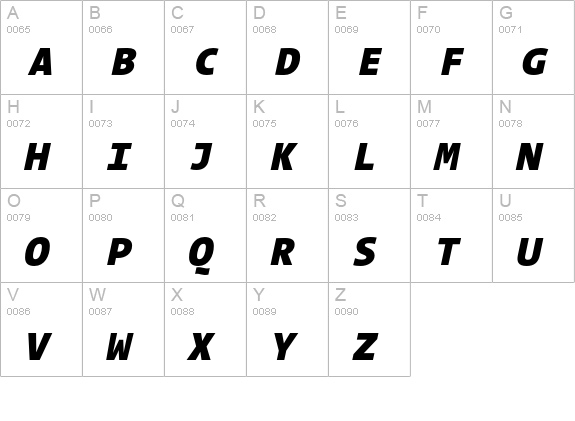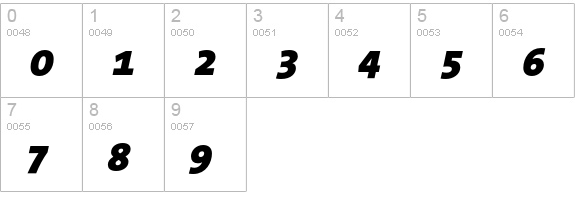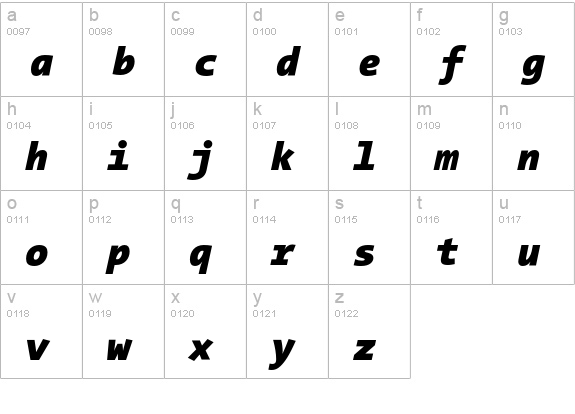
TheSansMono Black Italic Font Details
TheSansMono Black Italic is a maximum-weight, dramatic, italic variant in the TheSansMono typeface family \xE2\x80\x94 well suited to maximum-impact headlines, posters, and packaging.
TheSansMono Black Italic font is a stunning and versatile typeface that exudes a sense of boldness and creativity. With its sleek and modern design, this font is perfect for conveying a sense of sophistication and professionalism. TheSansMono Black Italic font stands out with its unique combination of strong, thick lines and elegant italics, making it a perfect choice for branding, logo design, and editorial projects. Its distinct style adds a touch of personality and flair to any creative endeavor. One of the best features of TheSansMono Black Italic font is that it is freely available to download at FontsMarket.com. This means that you can easily access this incredible font and incorporate it into your designs without any hassle. Whether you are a graphic designer, a web developer, or simply someone who appreciates high-quality typography, TheSansMono Black Italic font is a must-have in your font collection. With its wide range of characters and glyphs, TheSansMono Black Italic font offers versatility and flexibility in your design projects. It is compatible with various design software and can be used in both print and digital mediums. From headlines to body text, this font adds a touch of elegance and sophistication to any project. In addition to its stunning design and accessibility, TheSansMono Black Italic font is also highly readable and legible, making it suitable for a wide range of applications. Whether you are designing a website, creating a poster, or crafting a branding identity, this font ensures that your message is communicated effectively and professionally. With TheSansMono Black Italic font, you have the freedom to express your creativity and captivate your audience. Its bold and stylish design will make your designs stand out from the crowd, leaving a lasting impression on anyone who sees them. So why wait? Download TheSansMono Black Italic font for free at FontsMarket.com and elevate your design projects to new heights with this exceptional typeface.